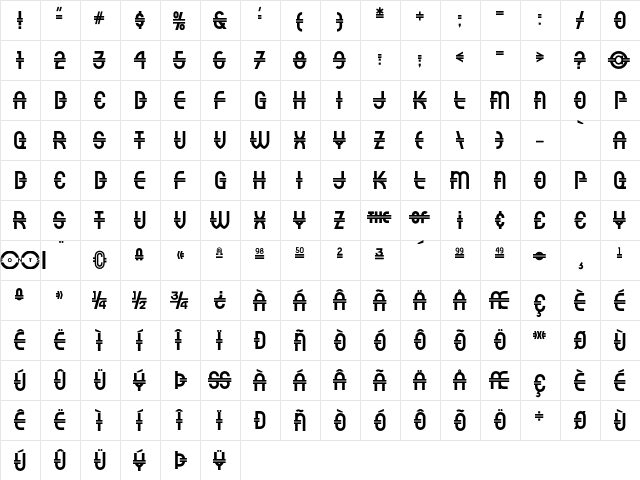
Luncheonette NF Regular
| Foundry | Nick's Fonts |
| Designer | Nick Curtis |
Design Context for Luncheonette NF Typeface
Luncheonette NF is a composed and adaptable typeface that performs quietly and consistently across a wide range of design contexts.